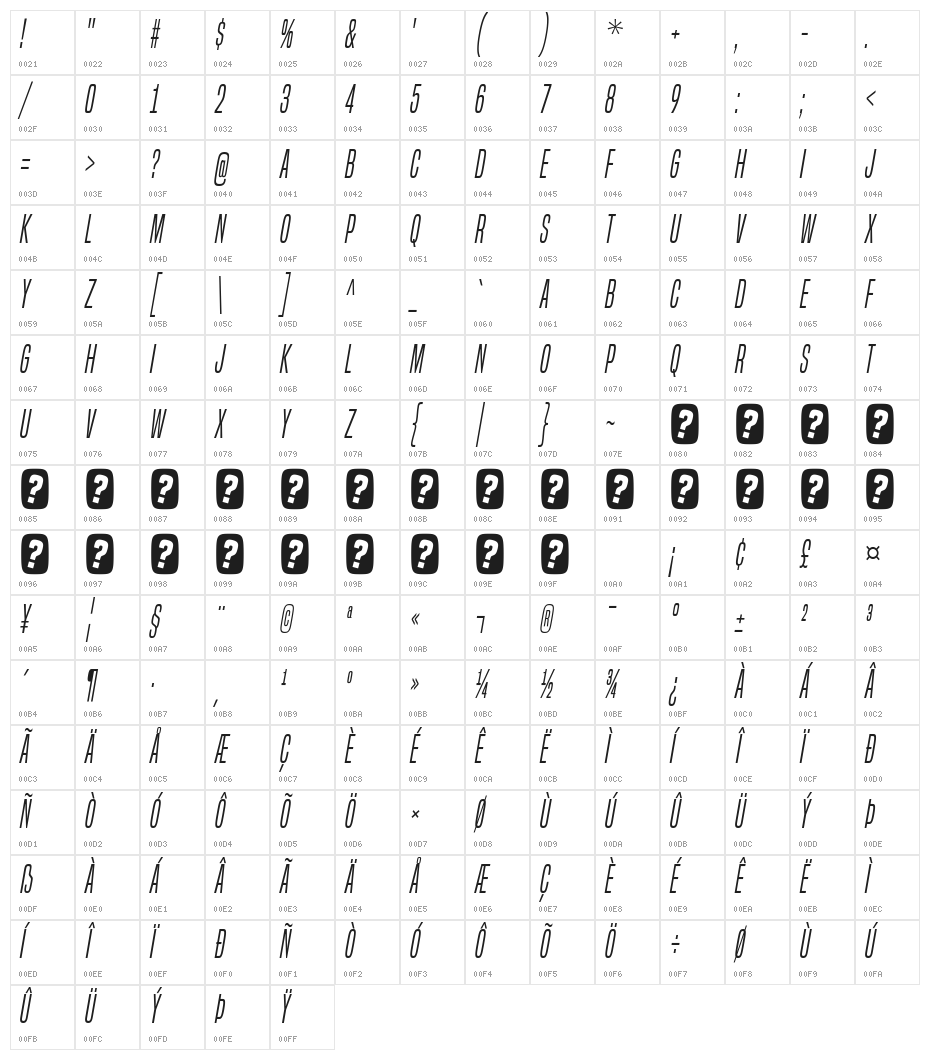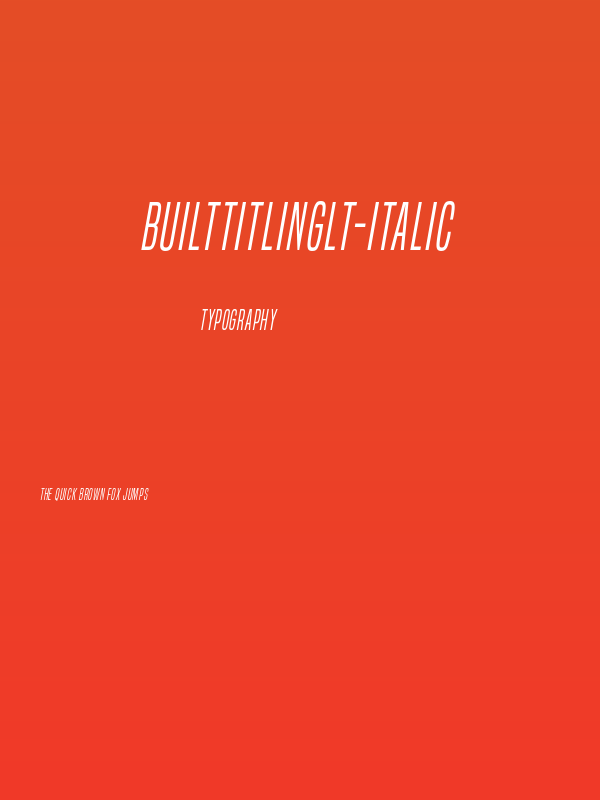
BuiltTitlingLt-Italic Font
BuiltTitlingLt-Italic Description
This font features a sleek and modern design with a distinct italic slant, giving it a dynamic and forward-moving appearance. The characters are tall and narrow, contributing to a condensed look that is both elegant and efficient in space usage. The strokes are consistent in thickness, providing a uniform and clean aesthetic. The uppercase and lowercase letters maintain a harmonious balance, while the numerals and special characters are designed to complement the overall style. This font's sharp angles and smooth curves make it suitable for contemporary design projects.
Proposed ProjectsIdeal for branding, advertising, and editorial design where a modern and stylish look is desired.